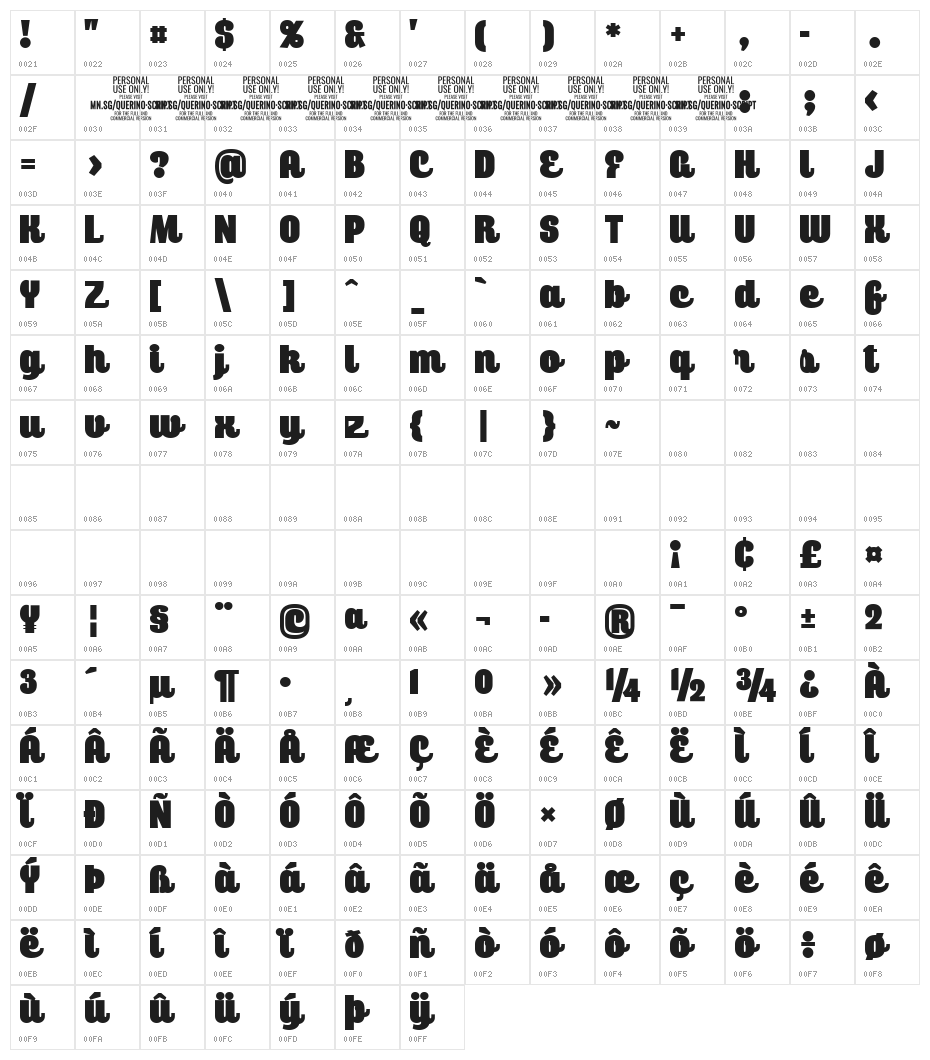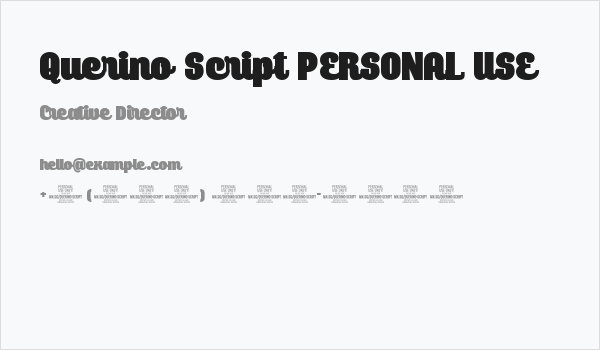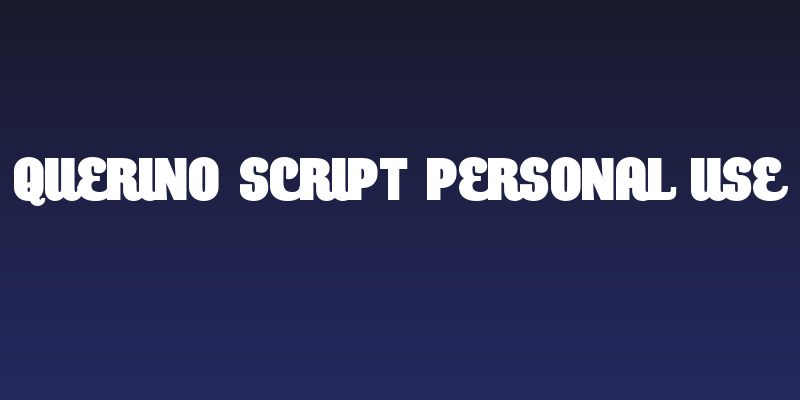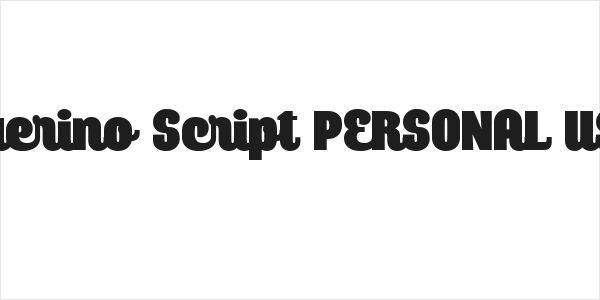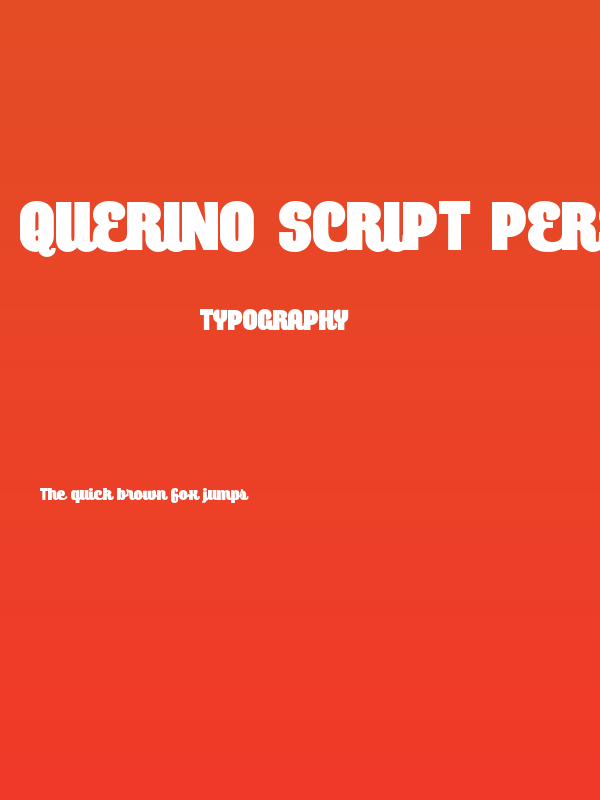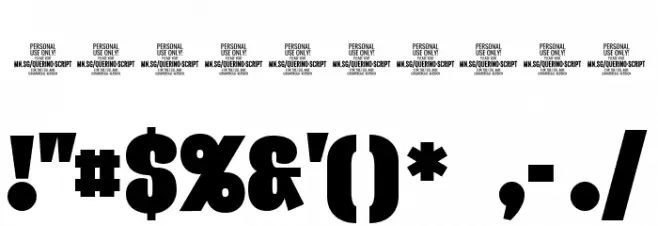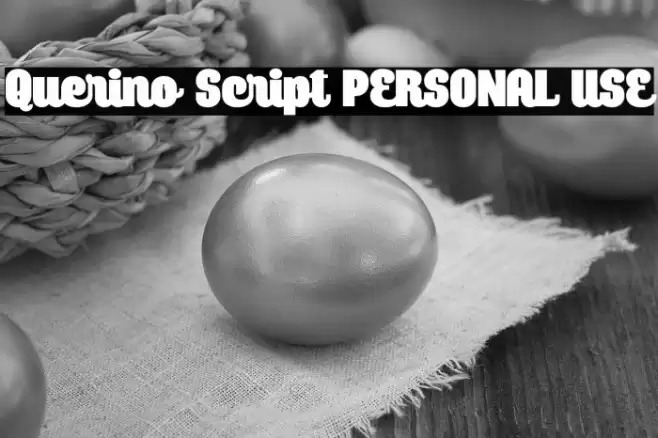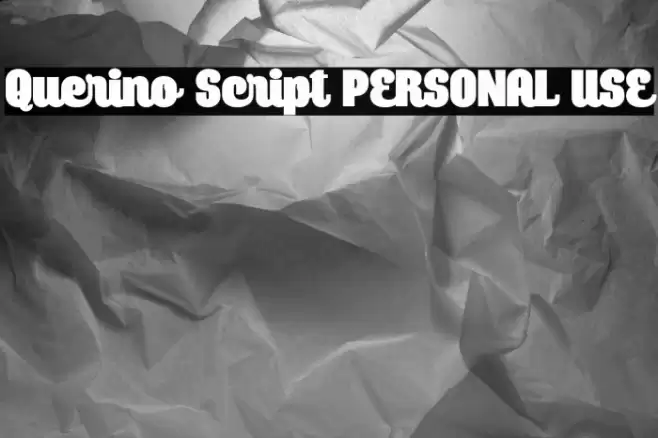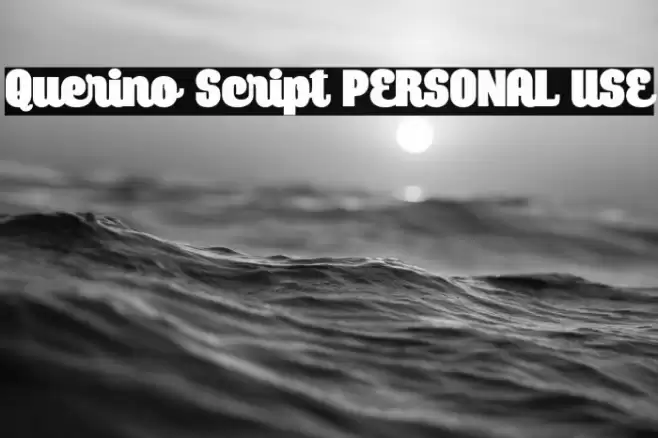
Querino Script PERSONAL USE Font
Querino Script PERSONAL USE Description
This font features bold, rounded characters with a playful and retro aesthetic. The uppercase and lowercase letters are designed with thick strokes and smooth curves, giving it a distinctive and eye-catching appearance. The font includes a full set of uppercase and lowercase letters, numbers, and a variety of special characters. Its boldness and unique style make it suitable for projects that require a strong visual impact. The characters are closely spaced, enhancing its compact and cohesive look. This font is ideal for creative projects that aim to convey a sense of fun and nostalgia.
| Overall Style | Retro, Playful |
| Proposed Projects | Ideal for posters, logos, branding, and any design project that requires a bold and playful touch. |